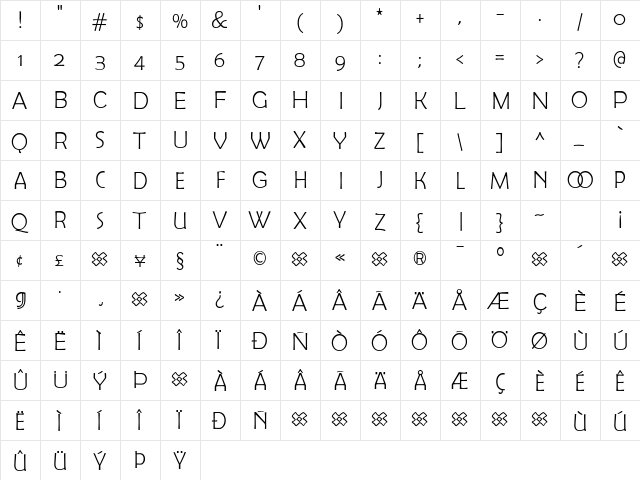
Berlinsans LightExpert
Berlinsans LightExpert Font Details
StyleLightExpert
Design Context for Berlinsans Typeface
Berlinsans is a composed and adaptable typeface that performs quietly and consistently across a wide range of design contexts. Its slender proportions lend an understated elegance to any composition.